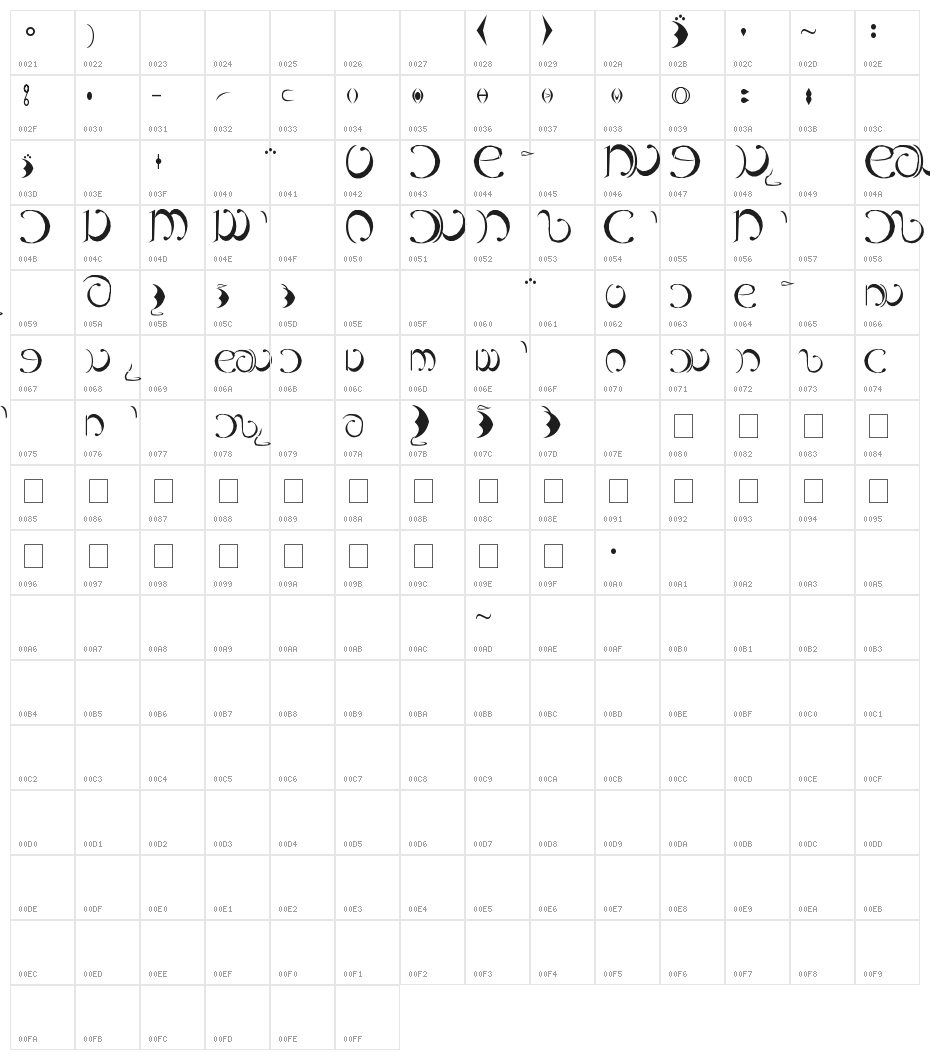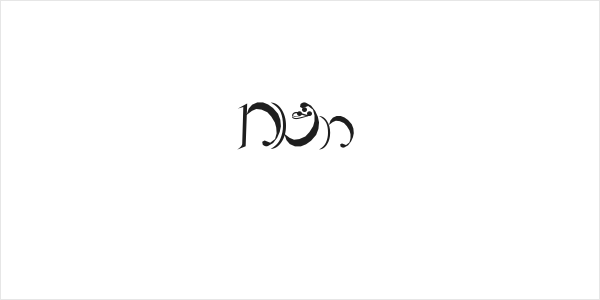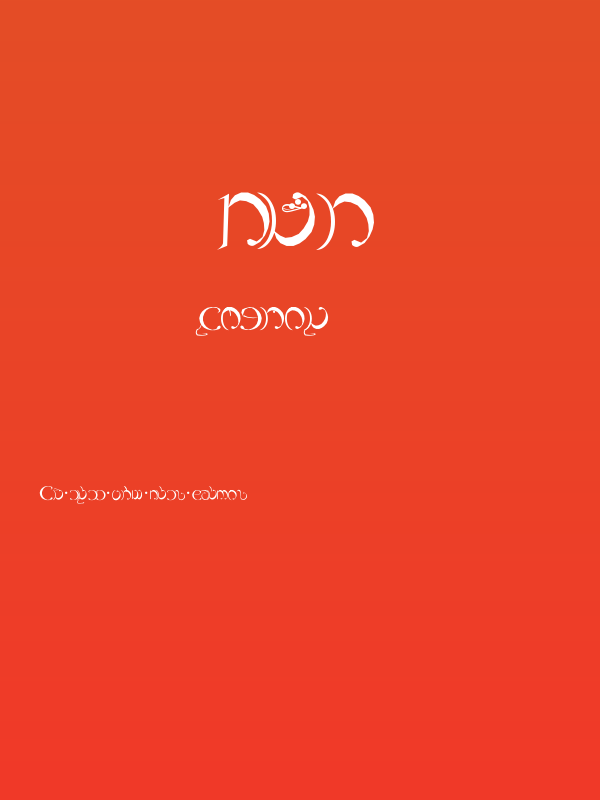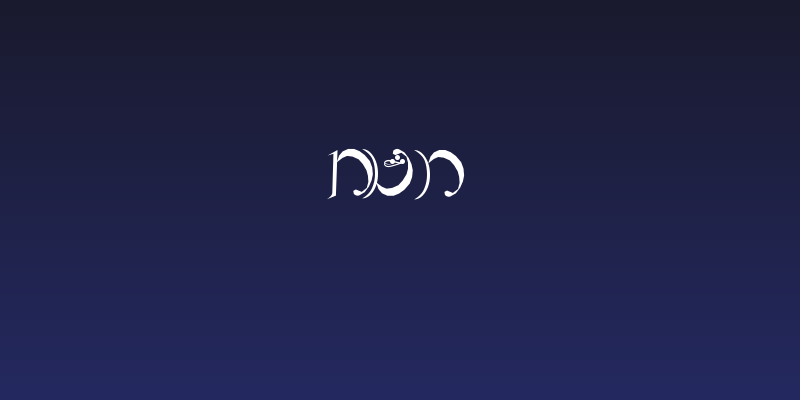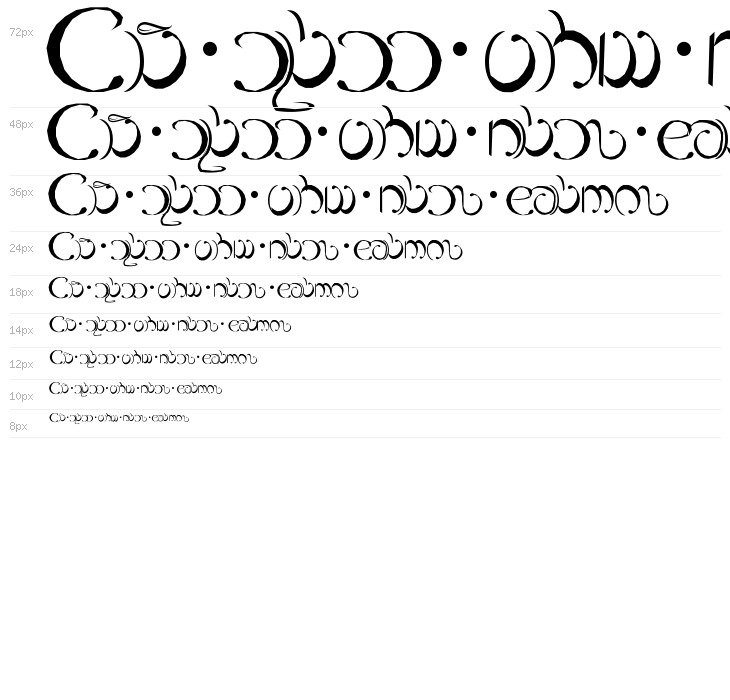
Faer Font
Faer Description
This font exhibits a highly decorative and artistic style, characterized by intricate curves and flourishes that give it a unique, almost mystical appearance. The letters are composed of bold strokes with elaborate, swirling embellishments that create a sense of movement and fluidity. The uppercase and lowercase letters maintain a consistent design theme, with each character featuring distinctive loops and curls. The numbers and special characters are similarly ornate, integrating seamlessly with the overall aesthetic. This font's design suggests a blend of traditional calligraphy with a modern twist, making it stand out as a statement piece.
| Proposed Projects | Ideal for fantasy-themed projects, book covers, invitations, and branding that requires a touch of elegance and mystique. |